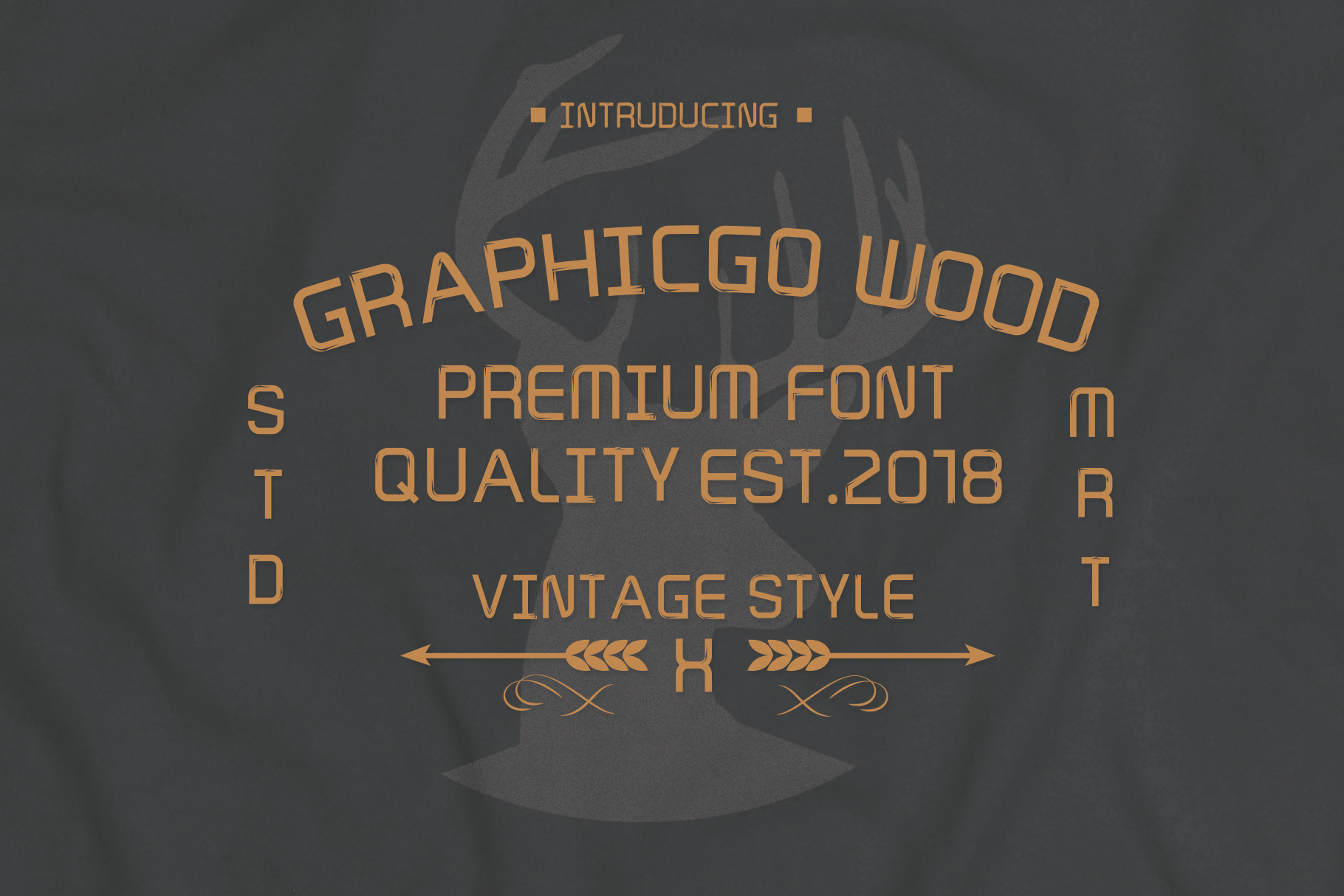
Graphicgo Wood Font
Graphicgo Wood Font is grunge and vintage style. It 's perfect for your lifestyle products, T shirt, posters, wall art, branding, diy projects, greeting cards, labels, quotes, packaging... Font include :